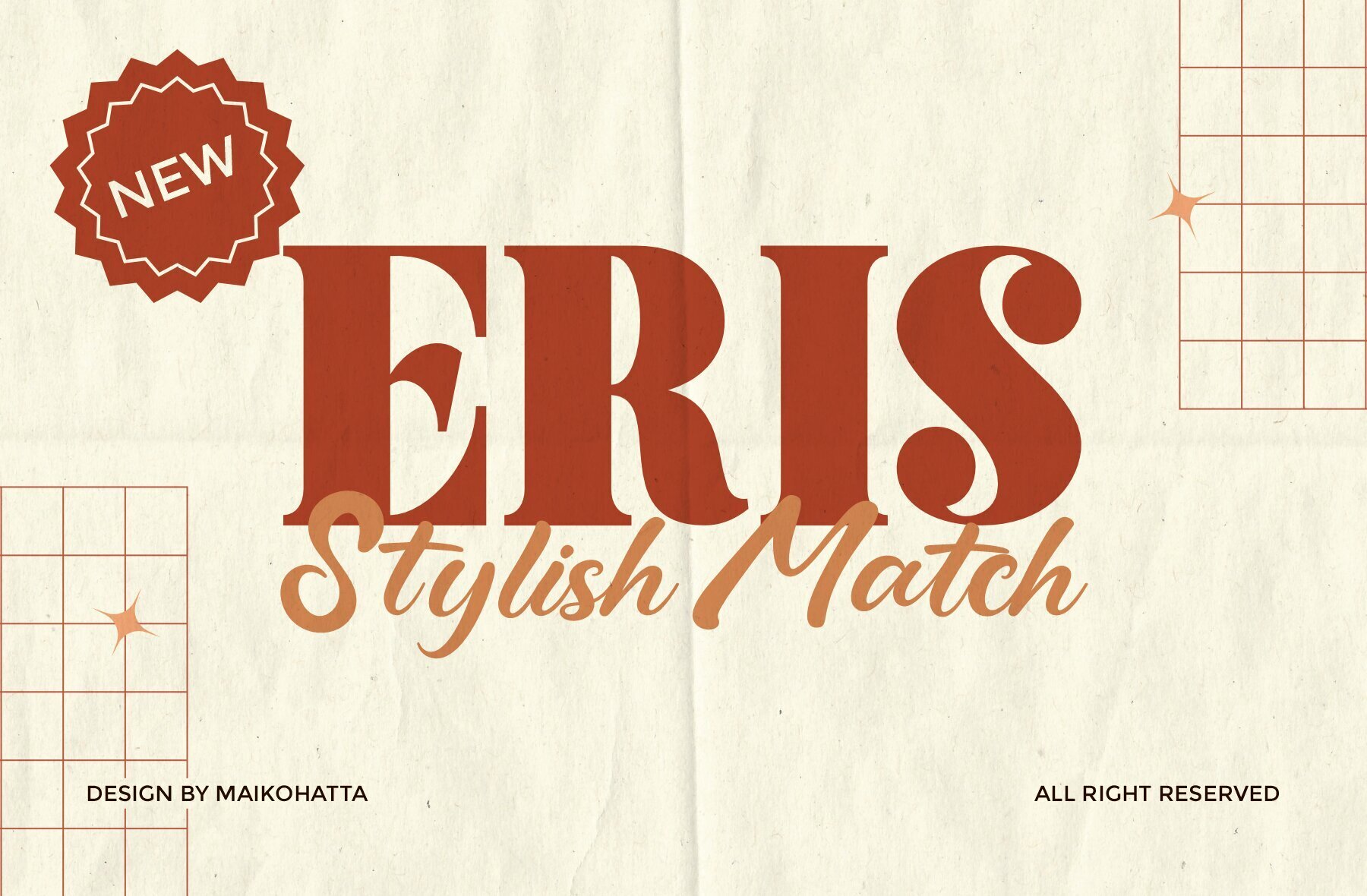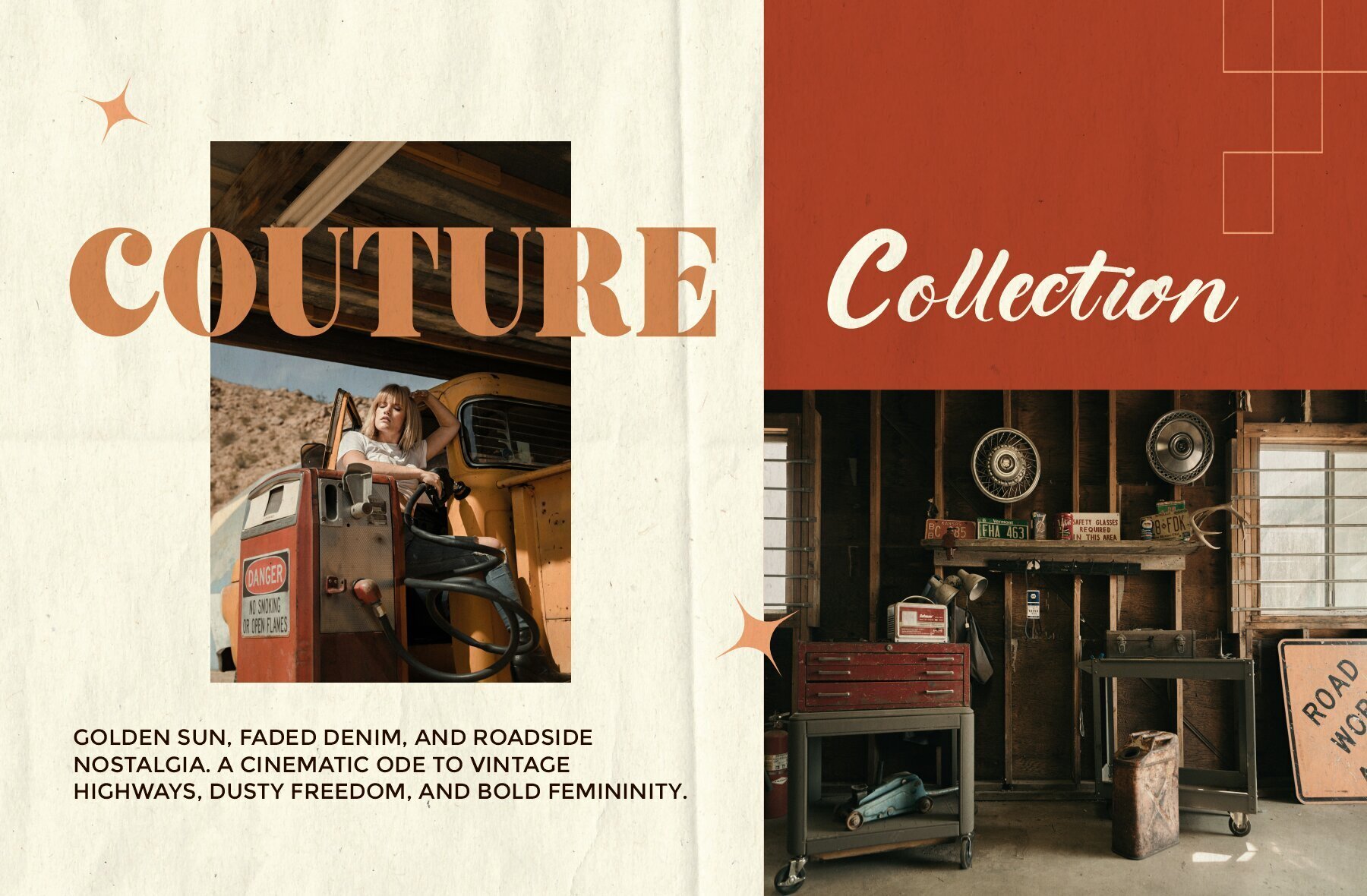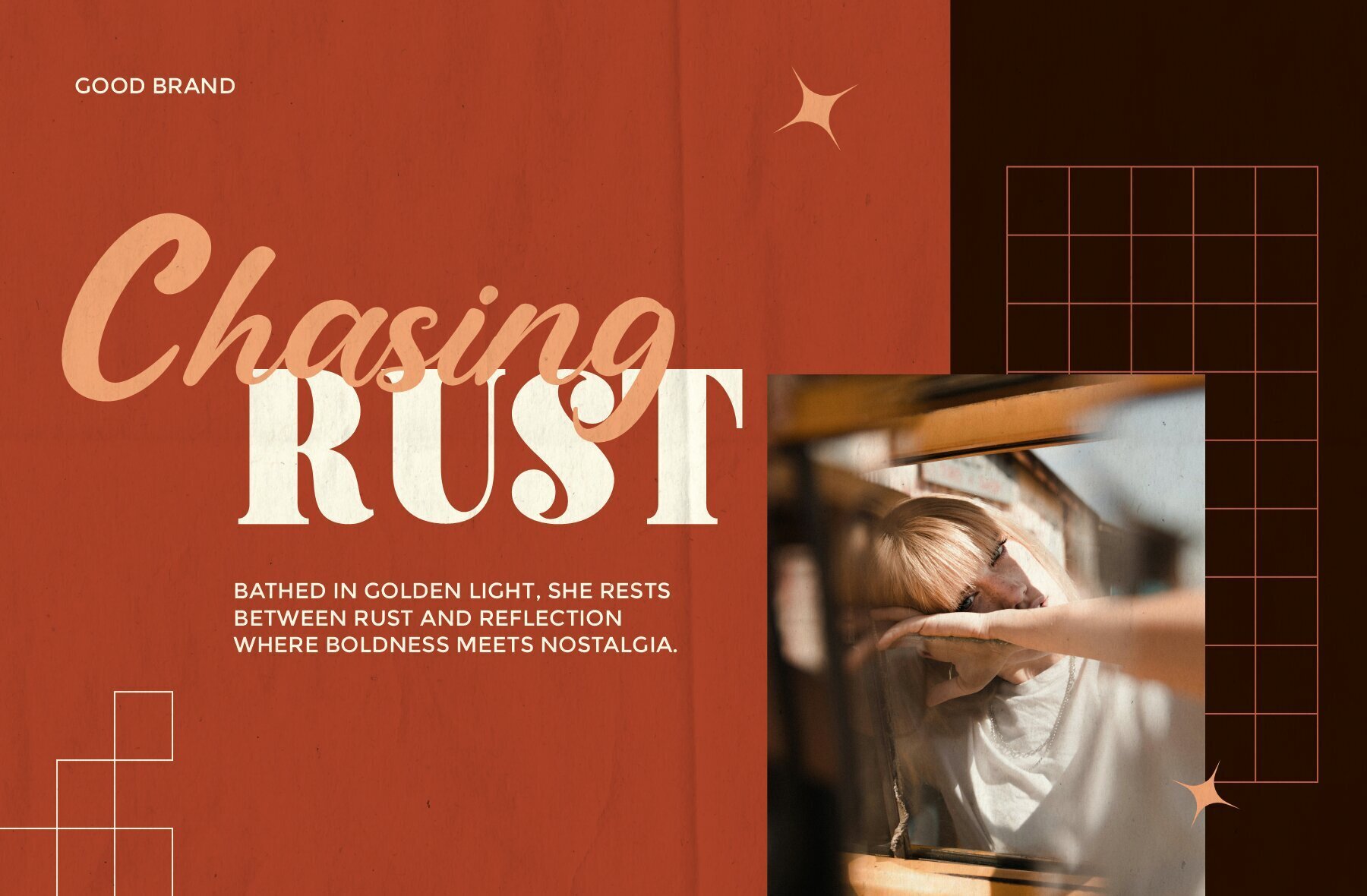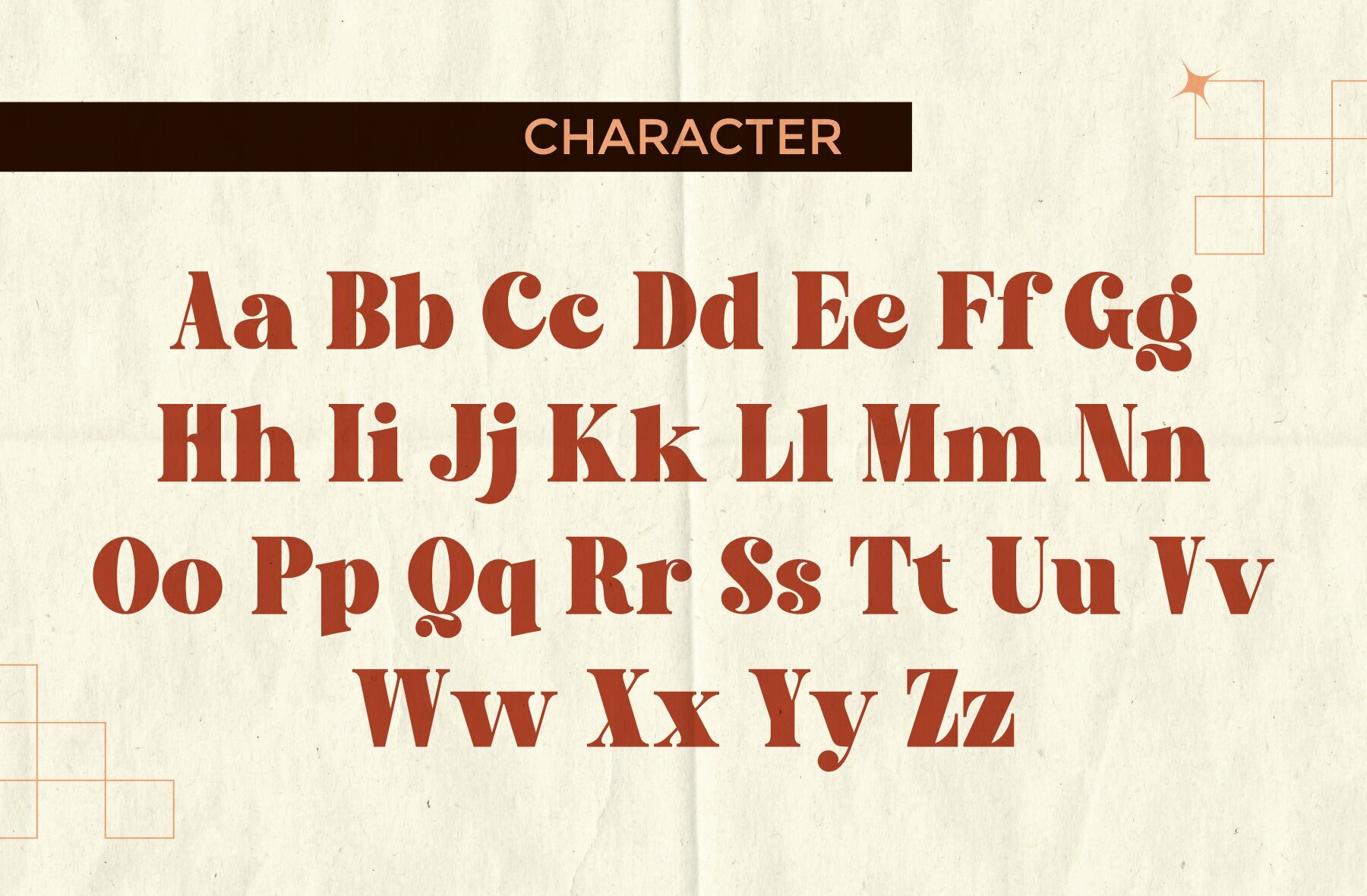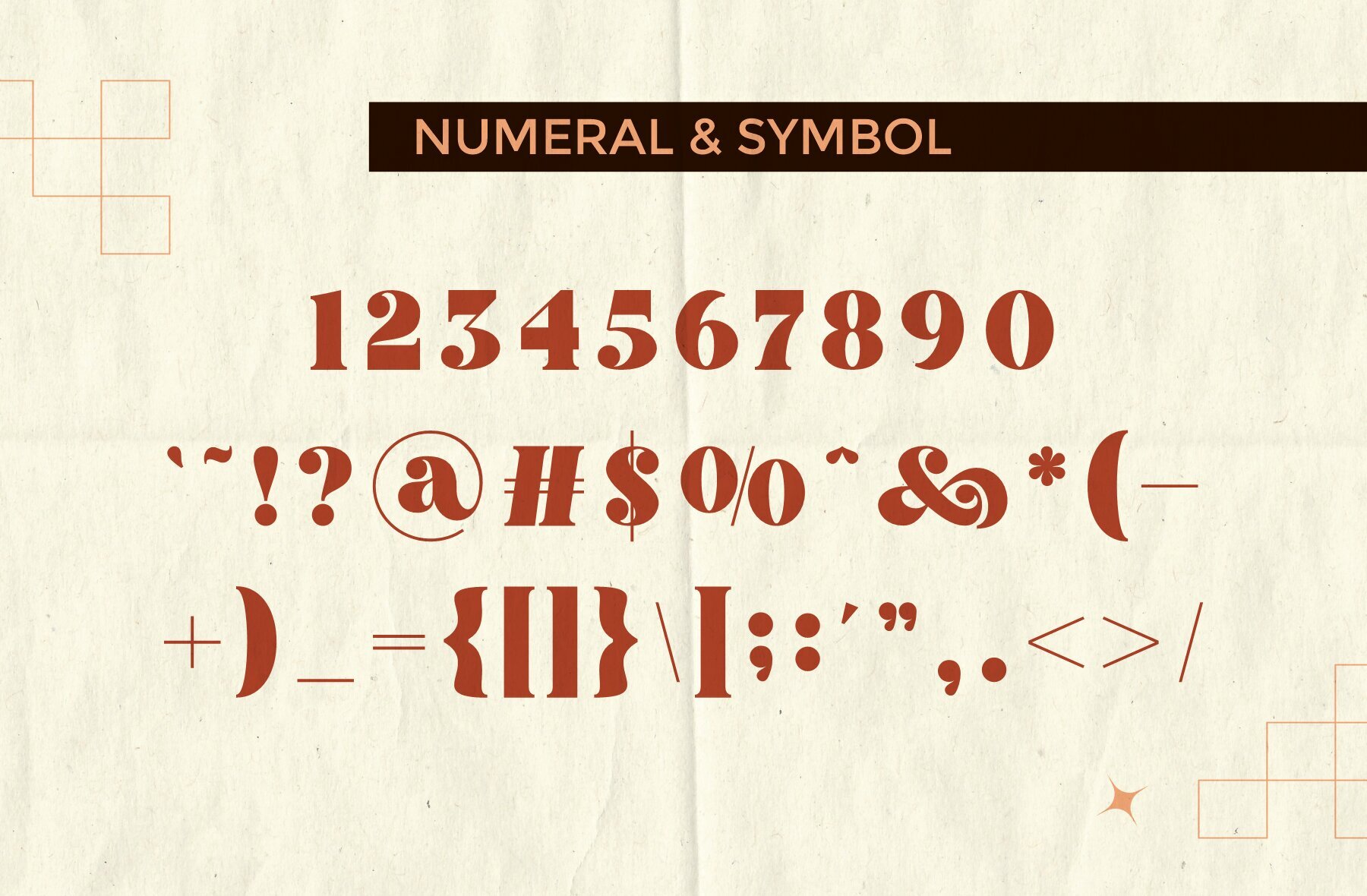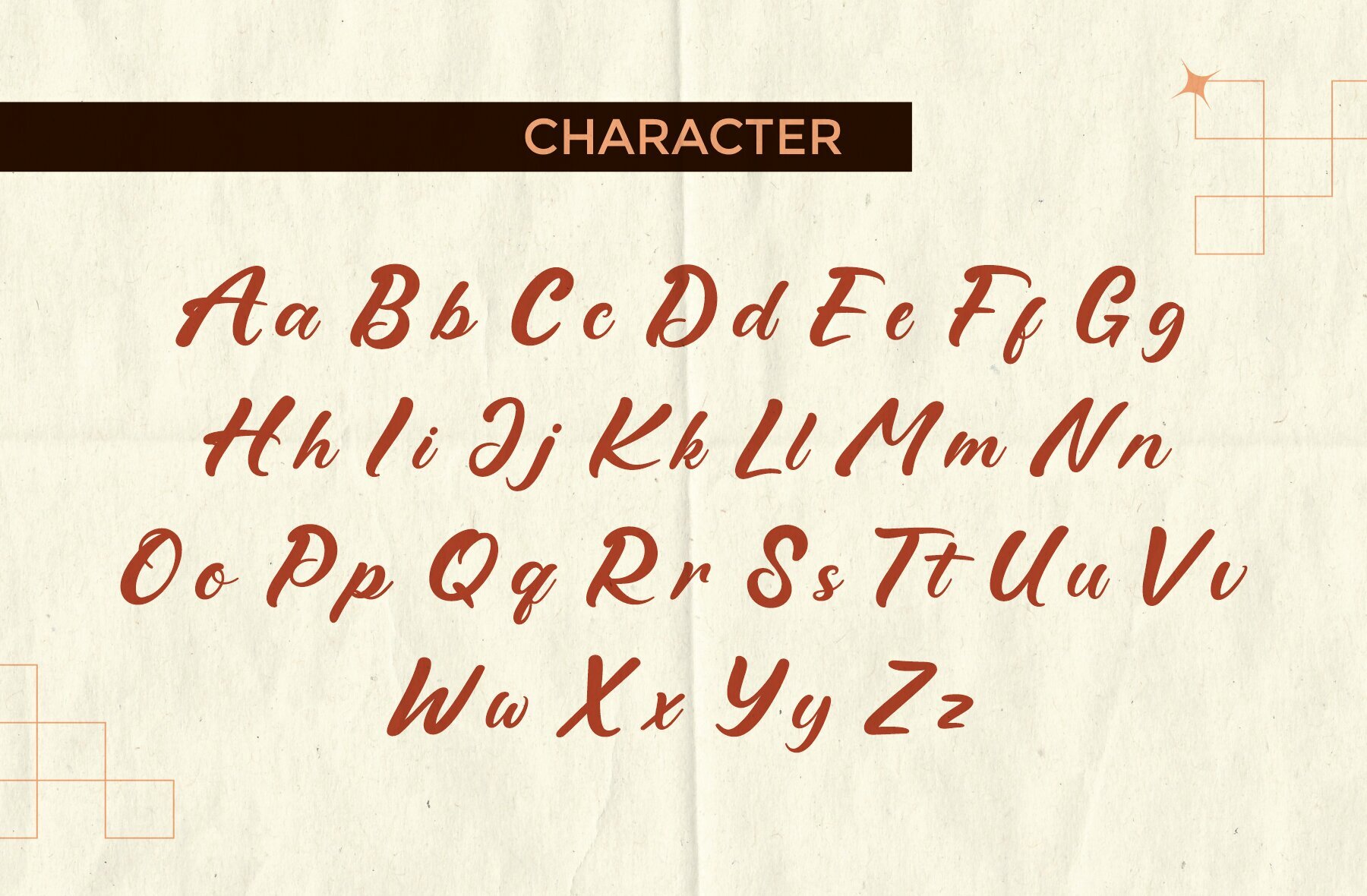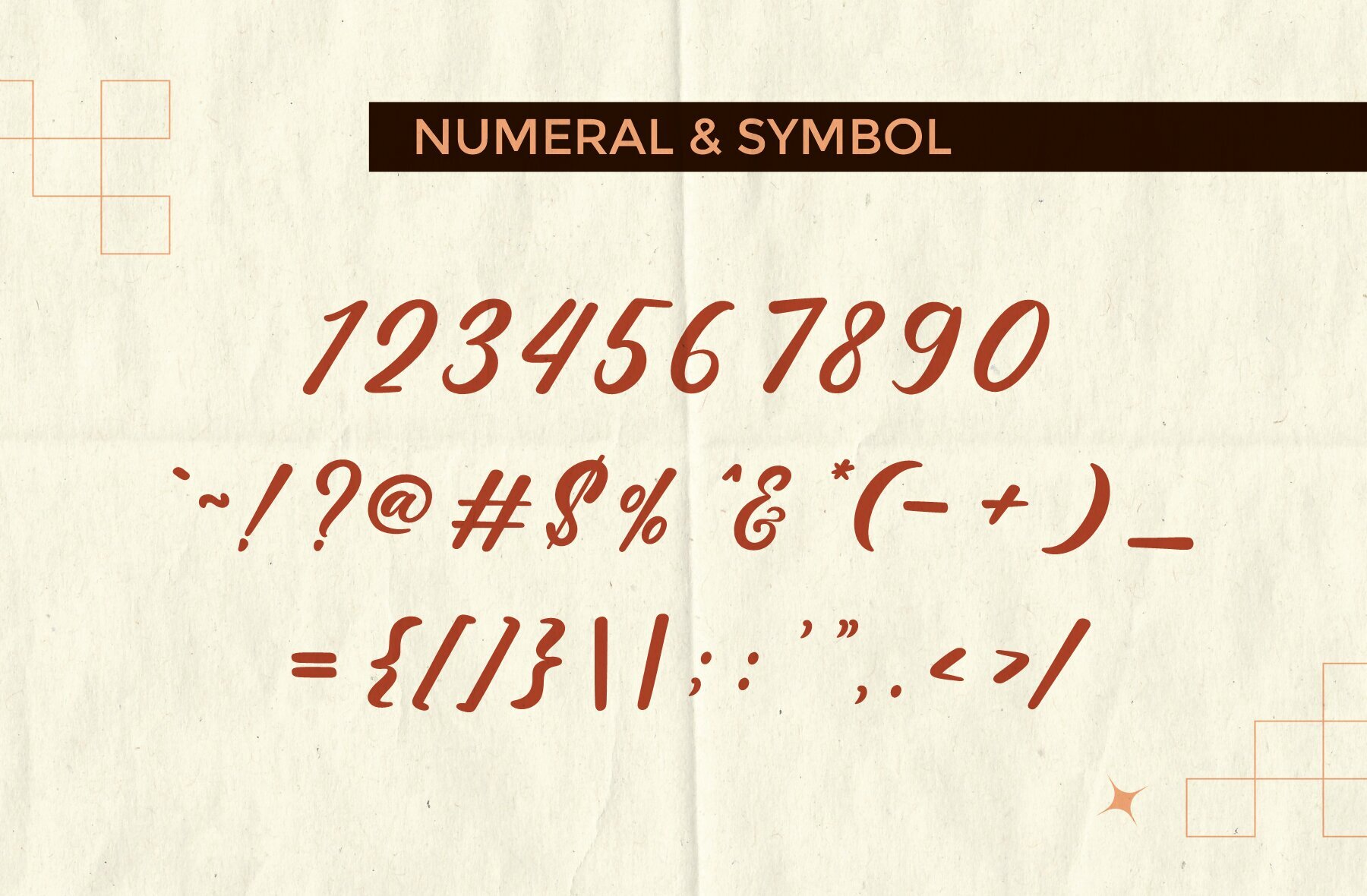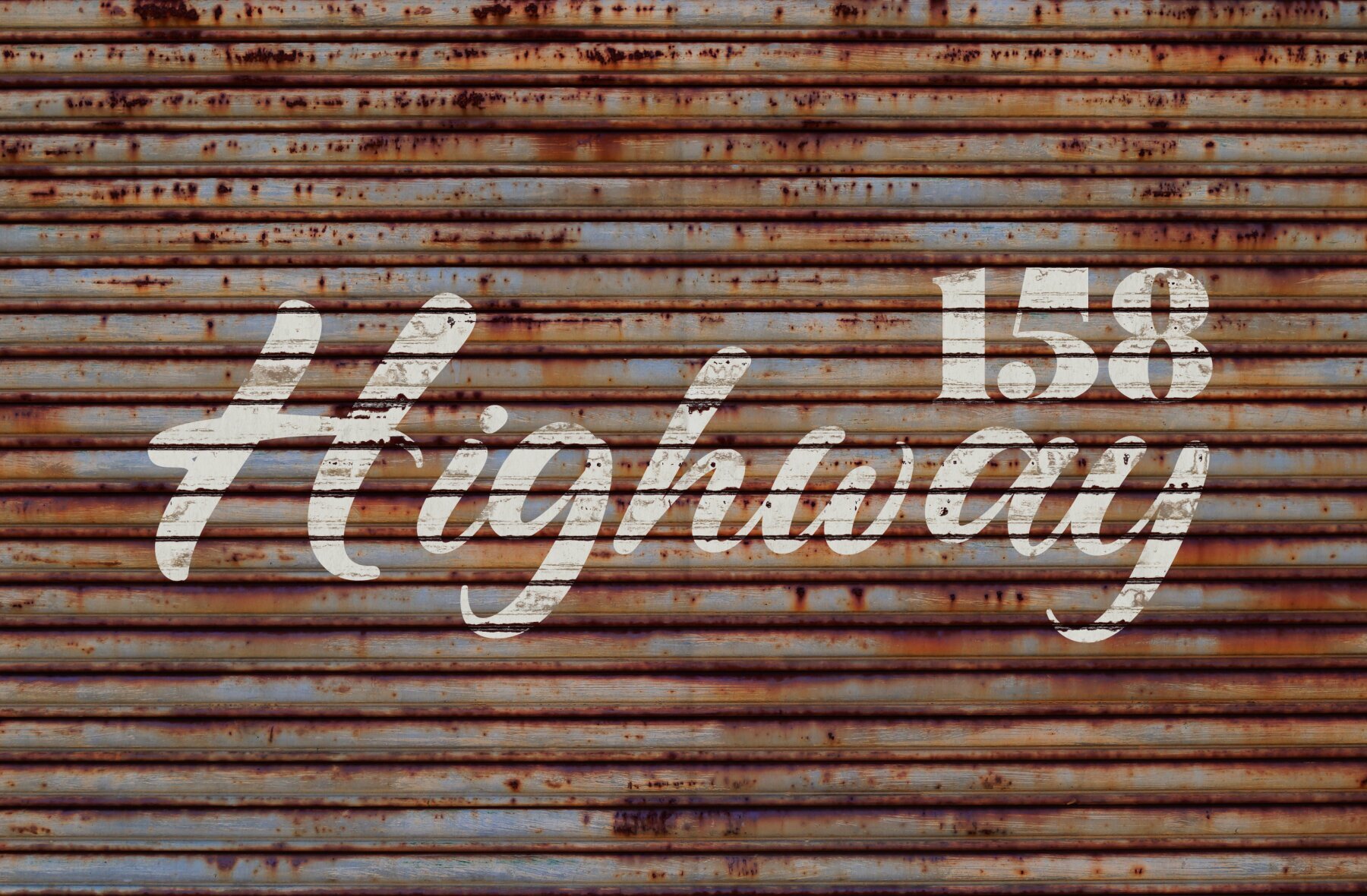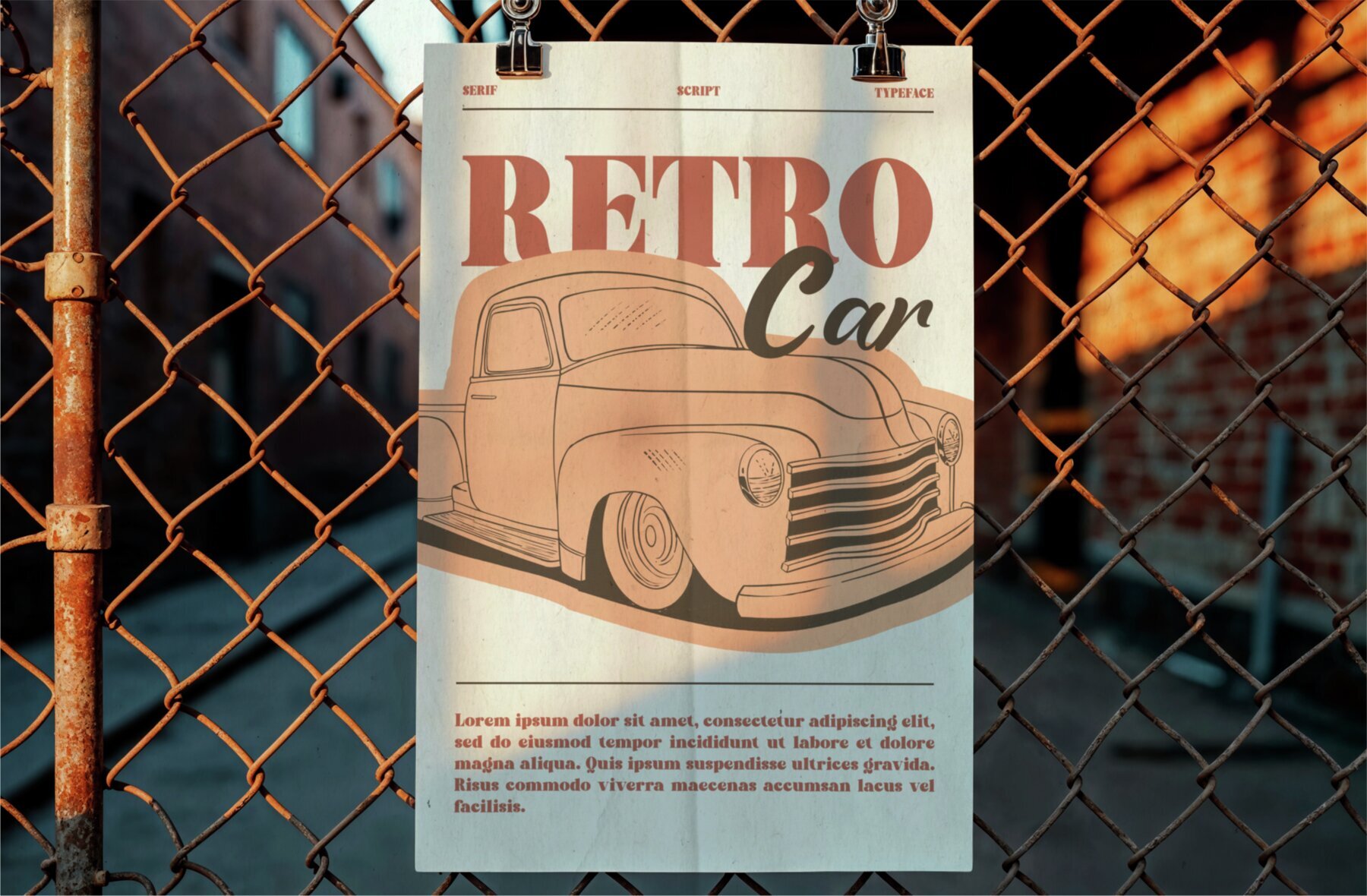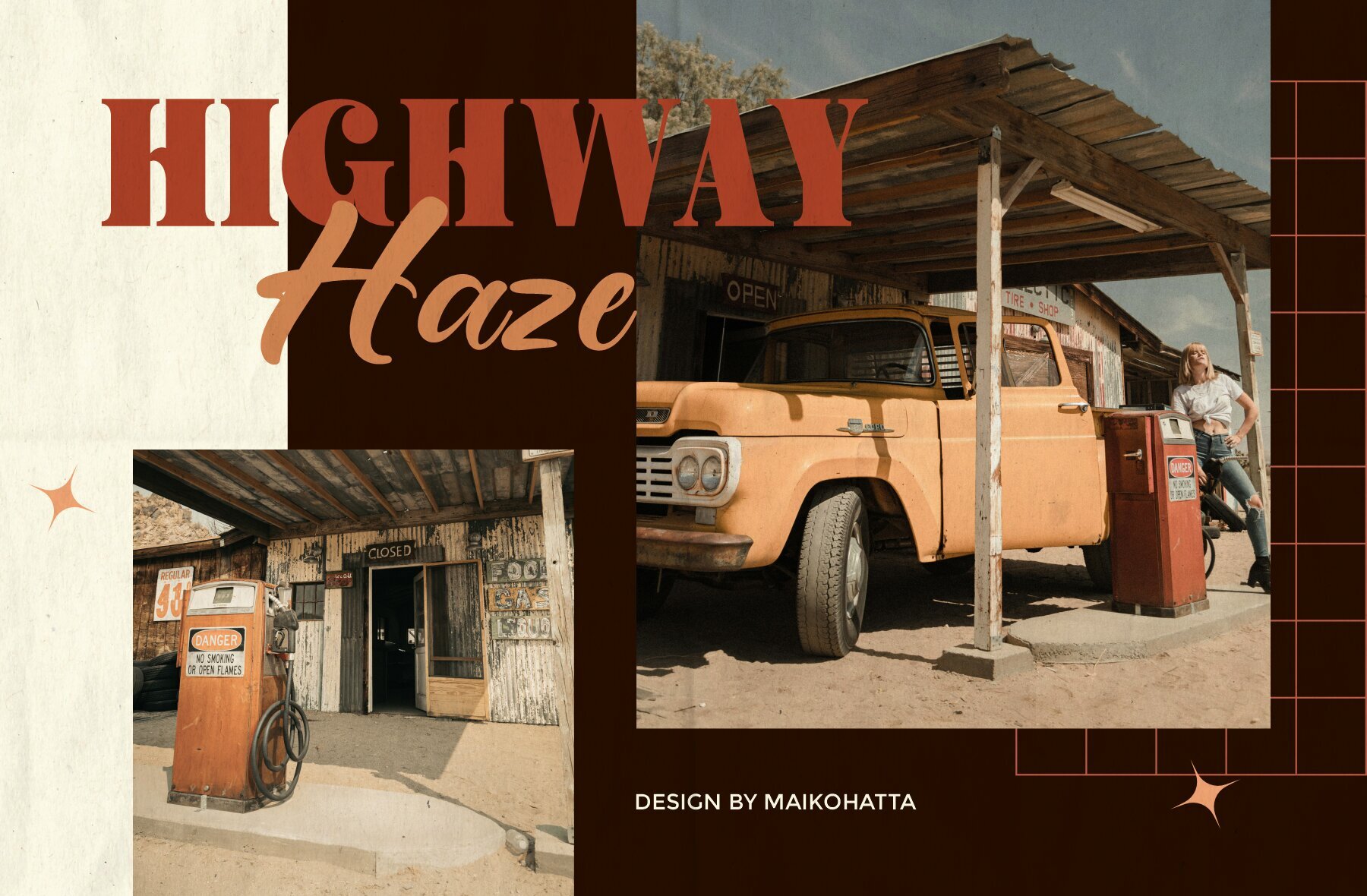
Eris Font
Delve into the distinctive essence of Eris, a typeface that captures the imagination with its blend of serif and script styles. These dual elements infuse every letter with a unique flavor, ensuring your design projects stand out. This style is marked by high contrast, precise details, and a nod to timeless elegance. Its contemporary feel is suited to both modern and traditional applications, bringing a sense of sophistication to any project. Experience the fluidity of this style, where each stroke exudes an authentic handwritten charm. With smooth ligatures and a natural flow, it adds an organic touch to any creative endeavor. Features:Eris Typeface: Distinctive Dual Styles
Eris Serif
Eris Script